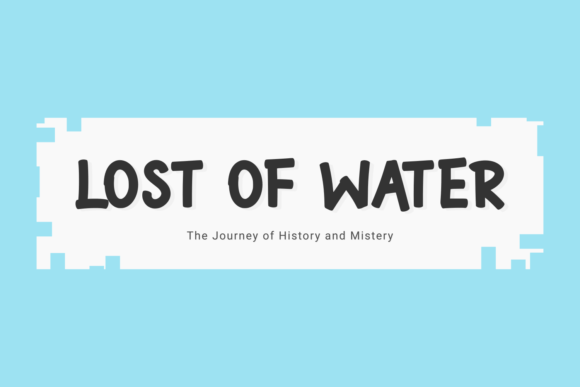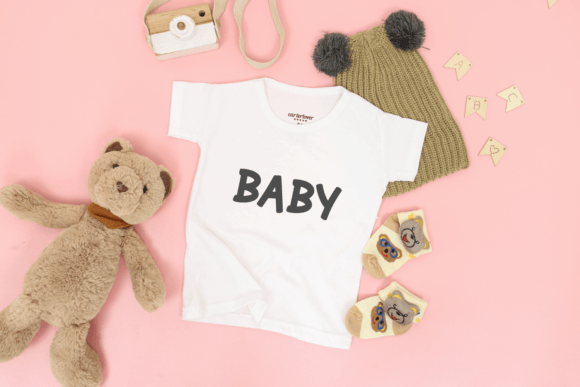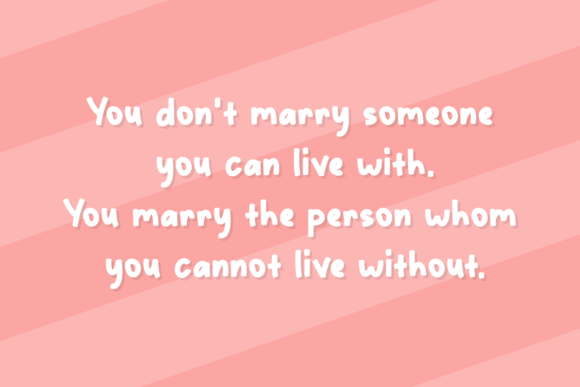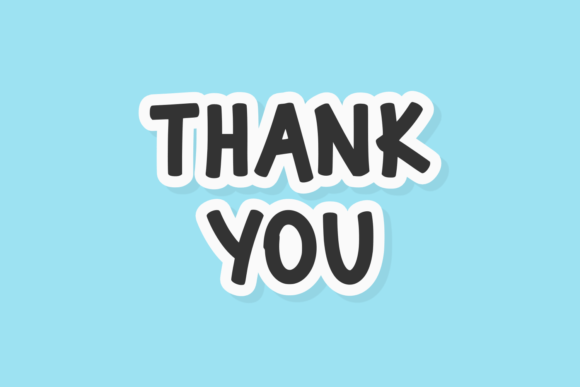
Introduction to My Story Heart Font Font
Fonts play a crucial role in design, and the My Story Heart Font font is a typeface that brings both character and versatility to any project. Whether you’re working on a branding project, a website, or a print design, the My Story Heart Font font offers a unique style that can elevate your work.
My Story Heart is a simple and fun display font.
Key Features of My Story Heart Font Font
Why Choose My Story Heart Font Font?
The My Story Heart Font font is more than just a typeface – it’s a design tool that helps you communicate your message with style and clarity. Its unique character set and versatile design make it suitable for a wide range of applications, from elegant invitations to bold headlines.
With its carefully crafted letterforms and balanced proportions, the My Story Heart Font font ensures readability and visual appeal across all mediums.
What makes My Story Heart Font font special?
The My Story Heart Font font stands out with its unique design, exceptional readability, and versatility across various design applications.